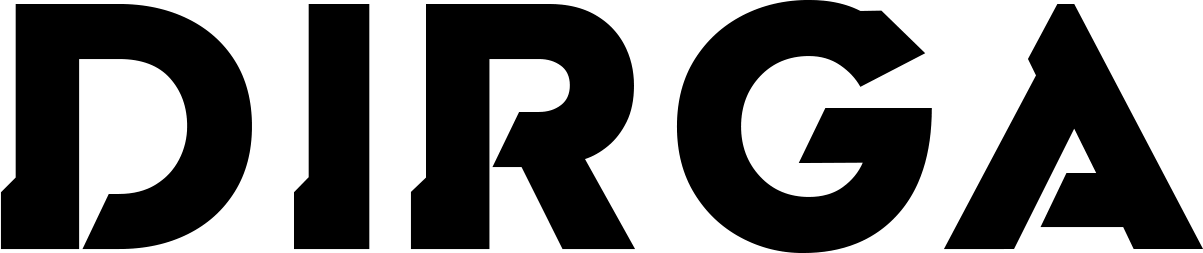
Dirga Font
Level up your text designs with a and impress your clients. This font can be suitable for scientific magazines, logos, movie posters, T-shirts, and wherever you consider. Don’t waste your time and hit the download button right now. If you wish to get more like Dirga, dive deeper into RB.